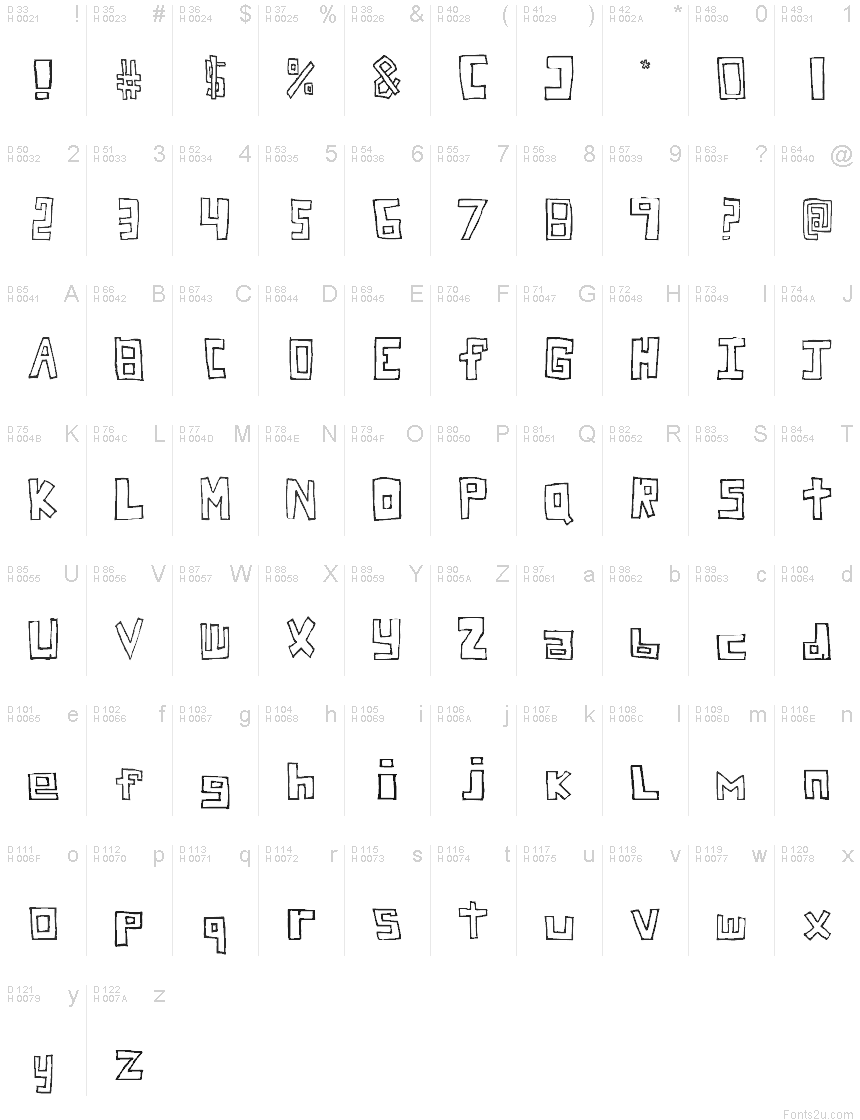
STUCK
Stuck by Rhett Bailey is a free hand-drawn outlined display font with a scrappy comic-poster attitude. The letters look boxed in but not rigid, with wobbly edges, uneven stroke widths, and chunky silhouettes that feel quickly sketched, giving the font a playful, slightly homemade tension.
That makes it a natural fit for zines, indie poster work, album art, kids' book covers, and title cards where the rough outline can carry a loud idea without feeling slick. As a free font, it also suits short headlines, badge text, and simple monograms, especially when you want big letterforms that feel blunt, quirky, and a little off-center.